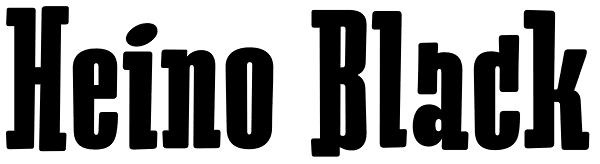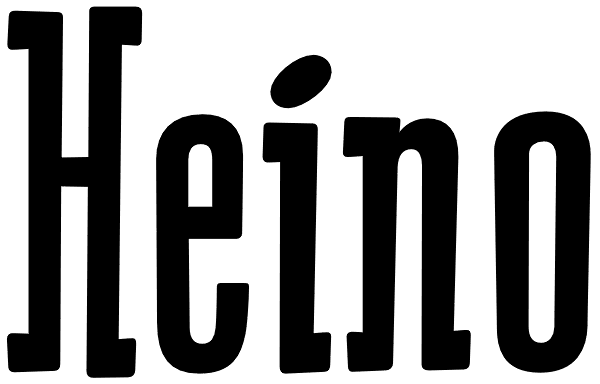
ALS Heino
Heino is a decorative face with two font styles that was inspired by an old magazine lettering. Its original features include heavy serifs and tight spacing, particularly if you take the Black version. The bouncing letters create a cheerful...
Heino Black
Heino